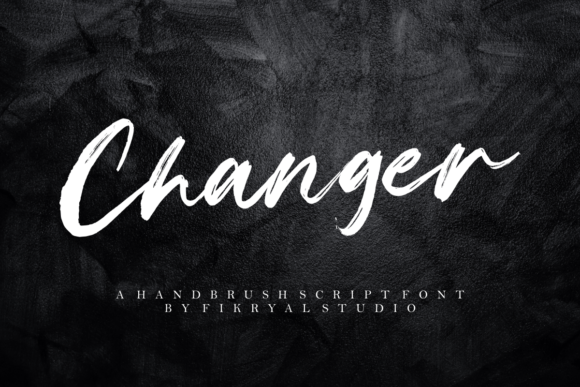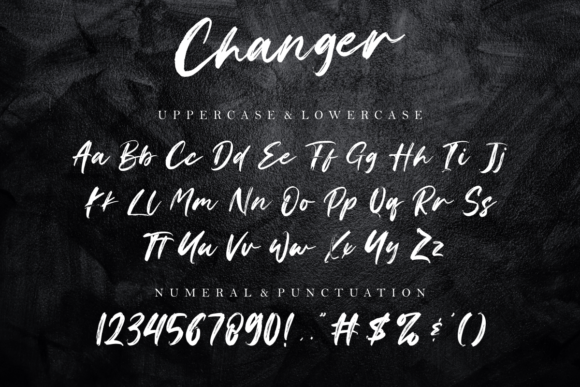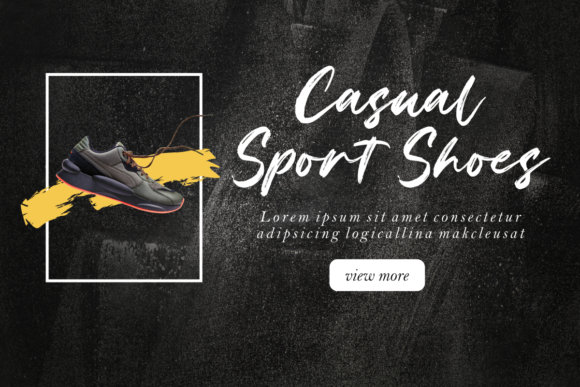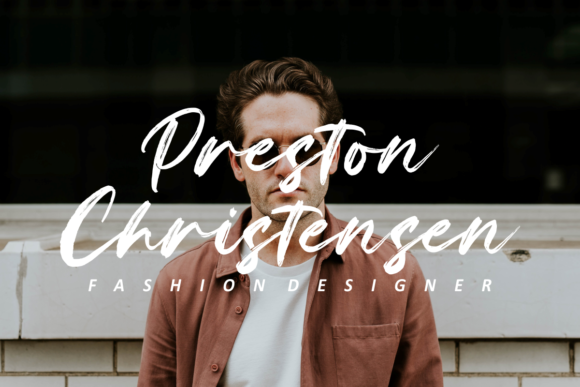
About Changer Font
Changer is a beautiful brushed handwritten font, featuring a lovely flow. It looks stunning on wedding invitations, thank you cards, quotes, greeting cards, logos, business cards and every other design which needs a personalized touch.